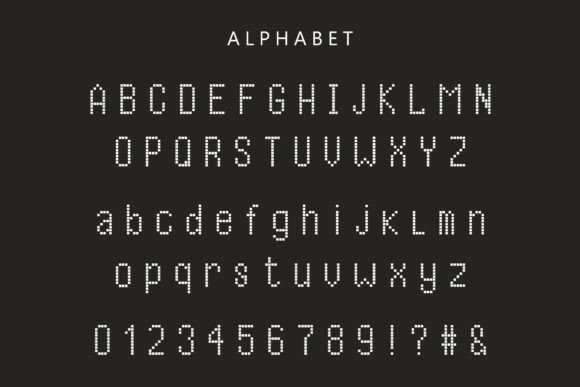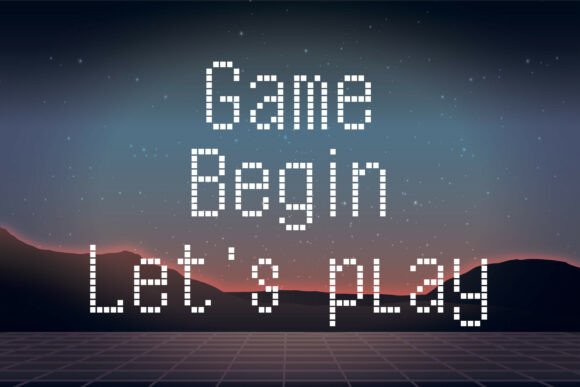
Introduction to Gaming Square Font
Gaming Square is a pixel font inspired by the retro arcade games.
Featuring a bold, grid-based design, itโs perfect for game interfaces, digital artwork, pixel animations, and any project that craves a playful retro aesthetic With its clear and legible characters, this font adds a touch of digital whimsy to every creation, making it an ideal choice for anyone looking to evoke the spirit of vintage gaming.